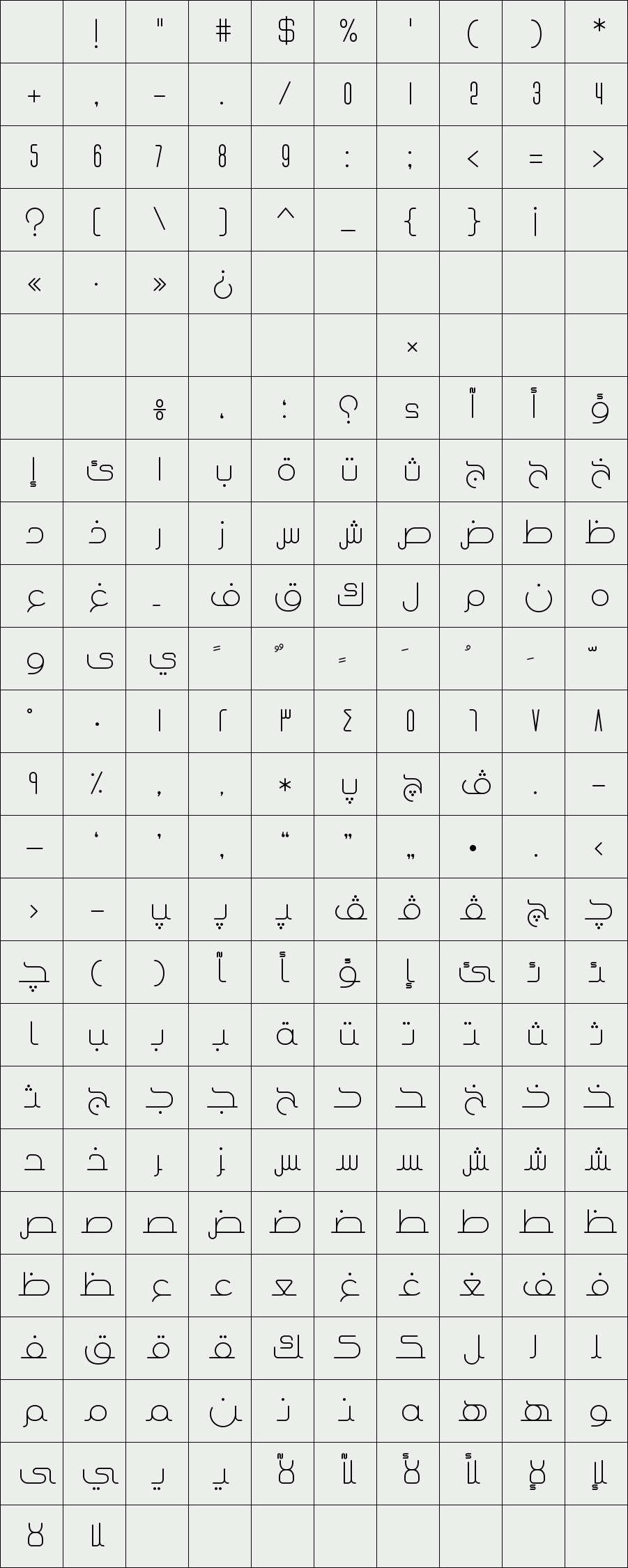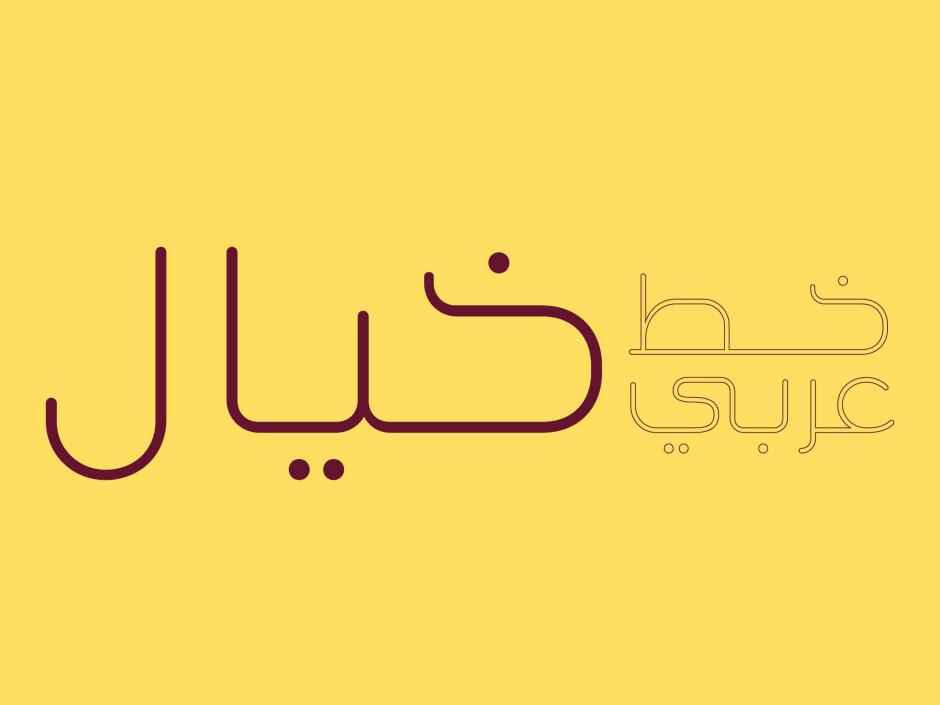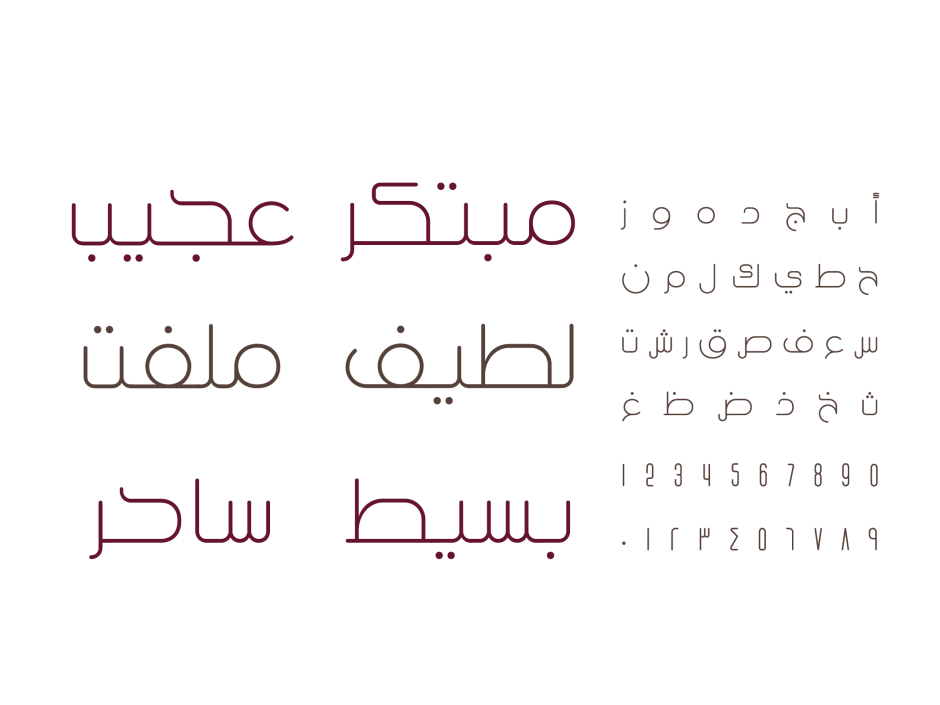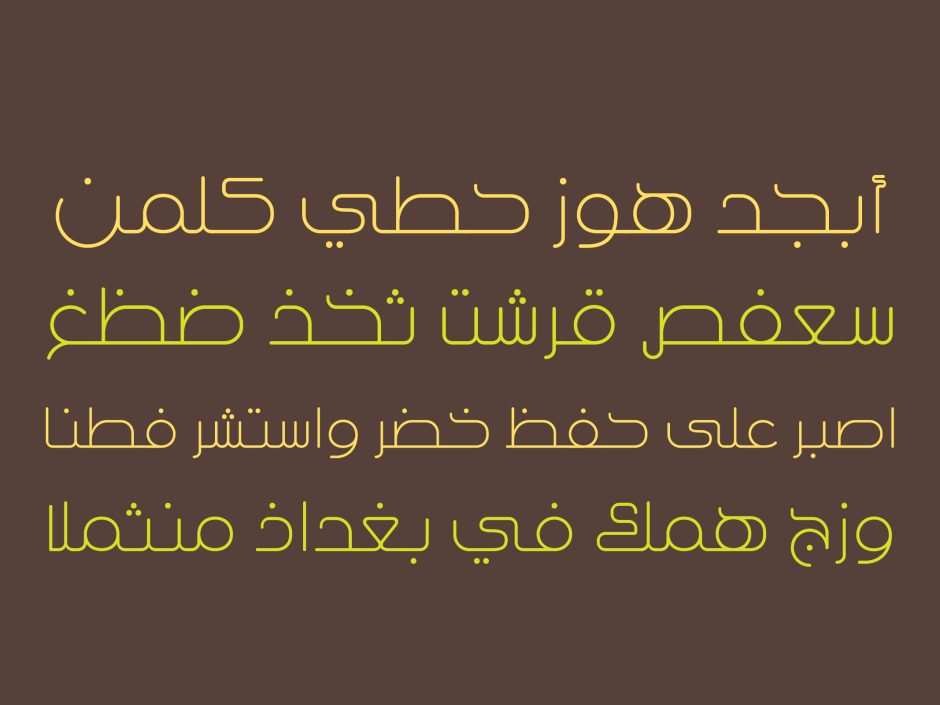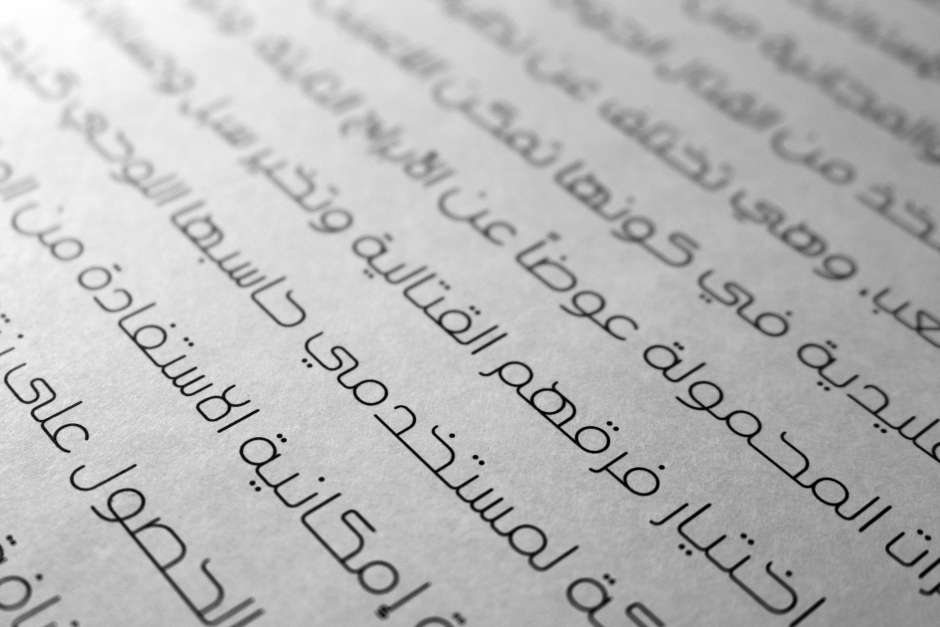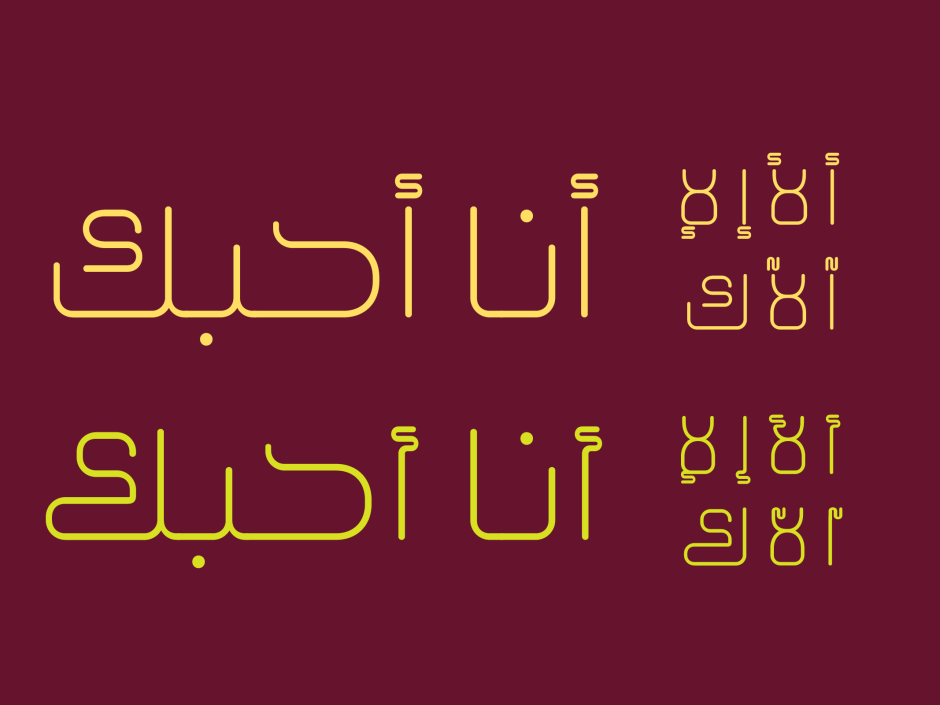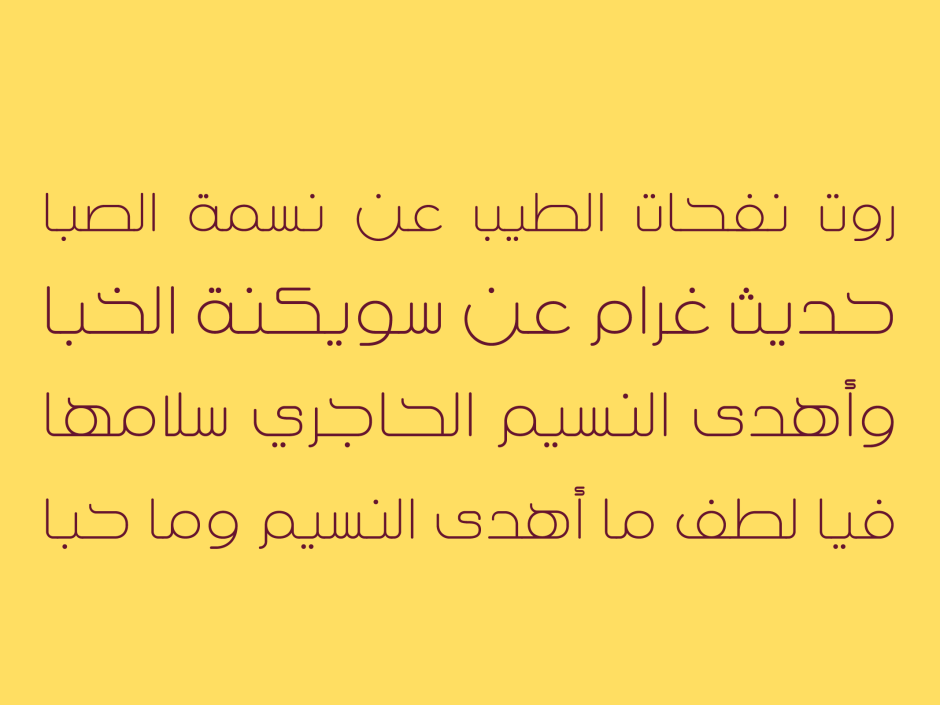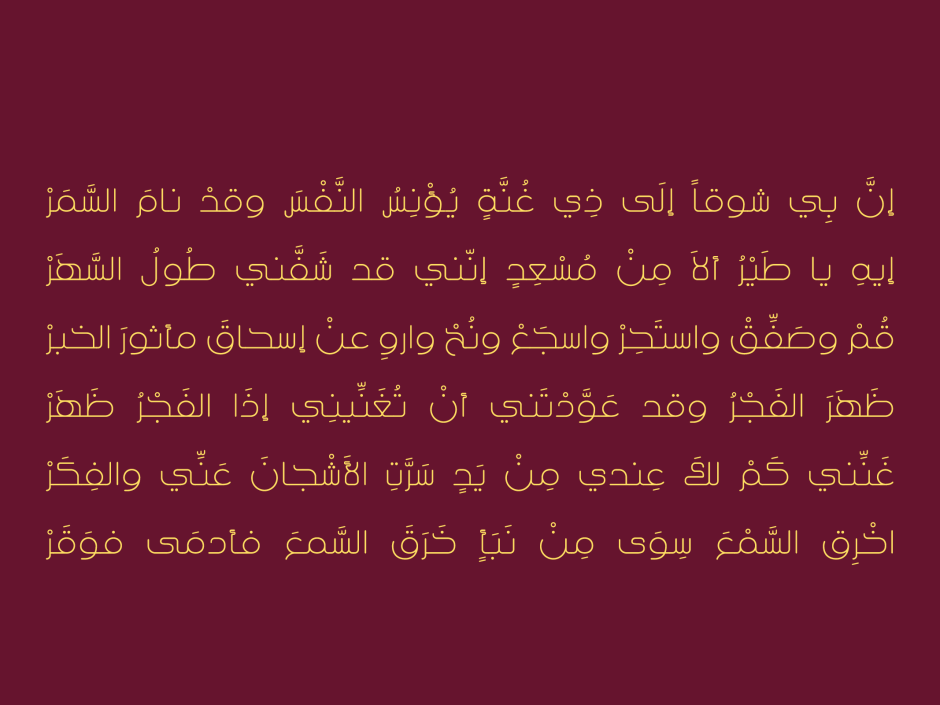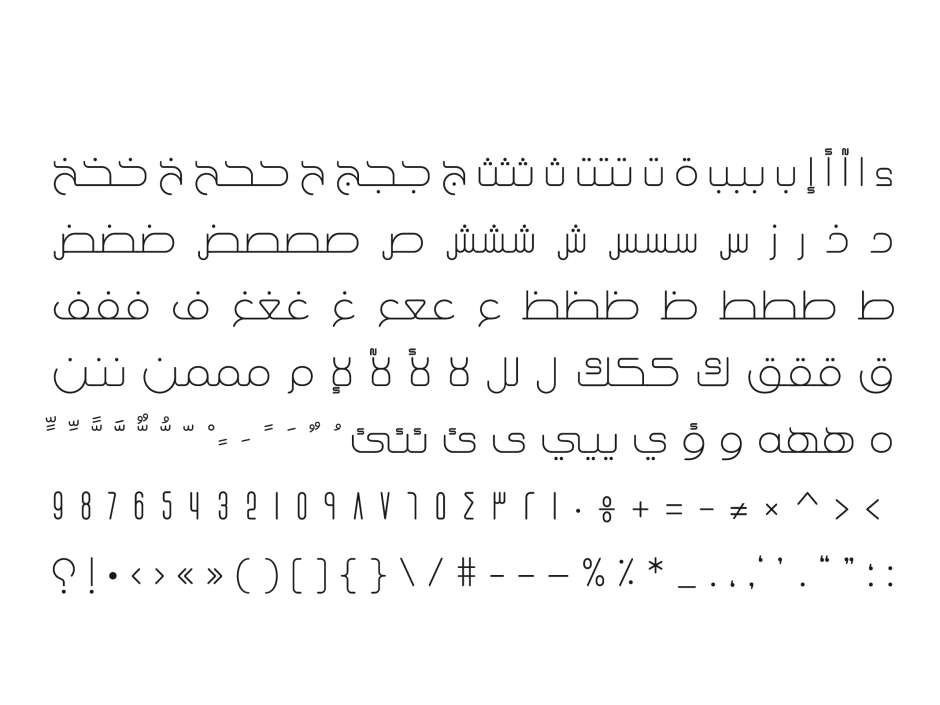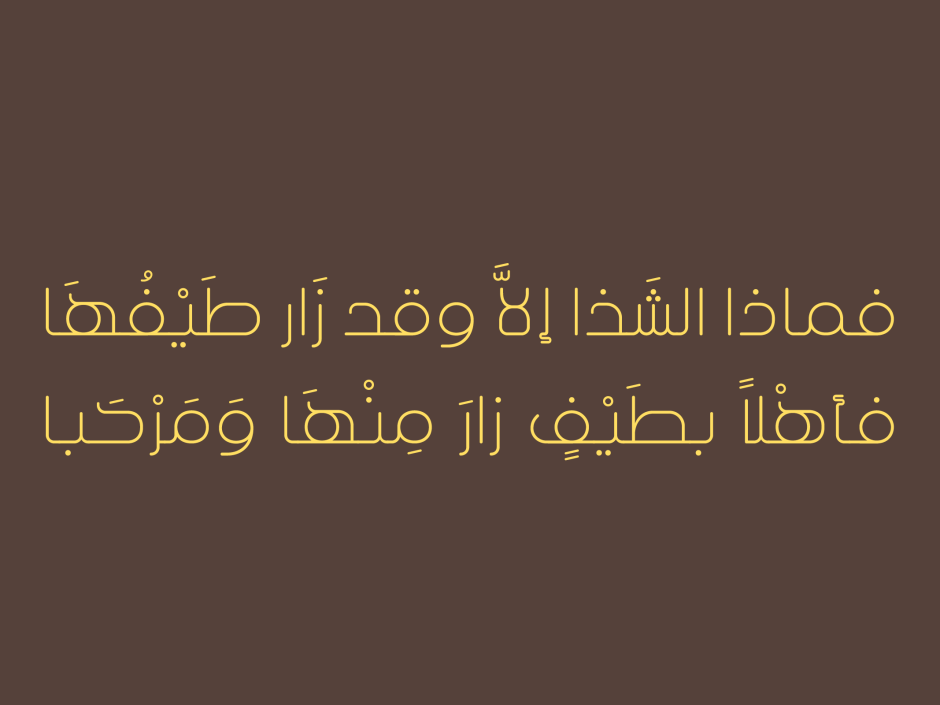
Khayal
Khayal is an Arabic display font with a linear/geometric structure. Letterforms, shapes and proportions are somewhat liberated from traditional Arabic chirography, developing an extraordinary font that suits contemporary projects. Khayal comes only in one weight and it combines a stylistic character set.